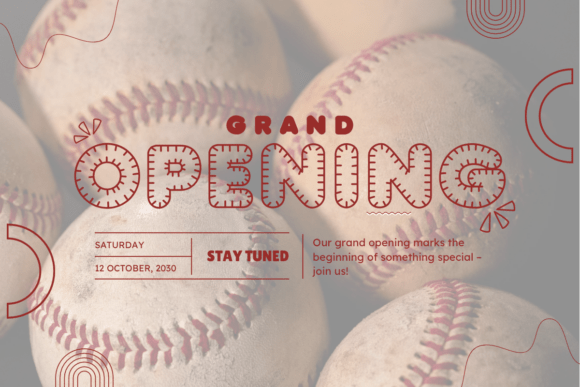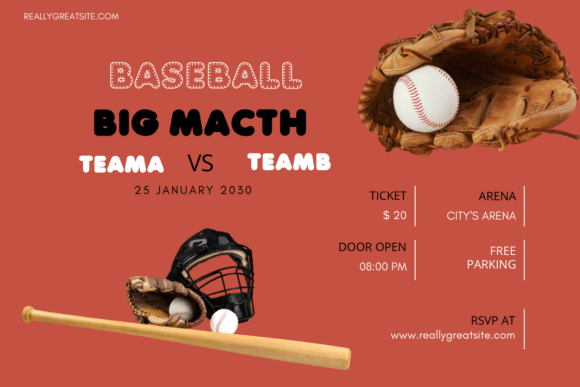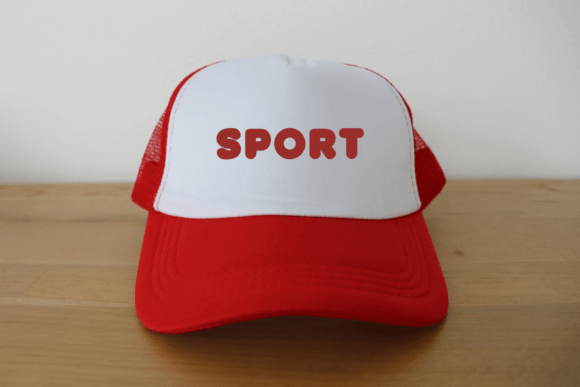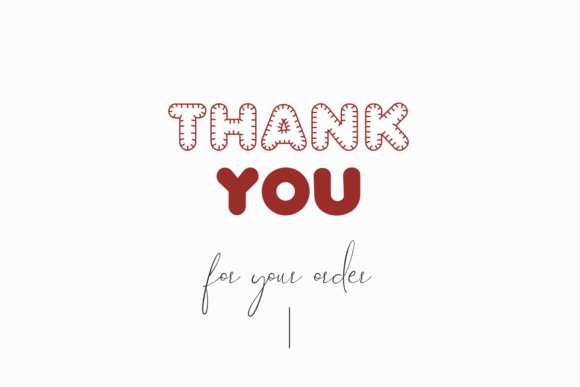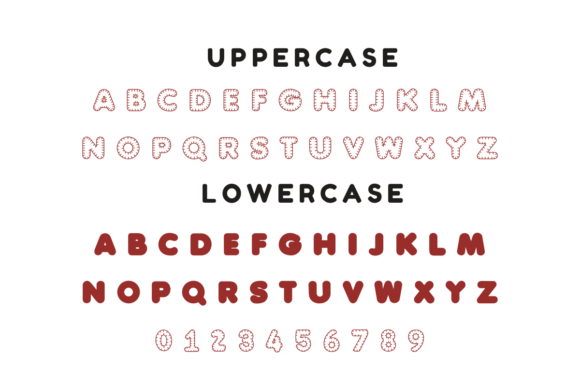
Introducing the Baseball Sport Font: A Home Run for Your Designs
Are you a designer or crafter looking for a font that captures the spirit of America’s favorite pastime? Look no further than the Baseball Sport Font! This fun and athletic decorative font is perfect for team branding, fan gear, kids’ sports events, and themed party decor. With its unique letters stitched like baseball seams and a blocky sports style, it’s sure to be a home run for any playful or sporty design.
The Perfect Font for Sports Enthusiasts
The Baseball Sport Font is designed to bring the excitement of baseball to your designs. Its stitching details and blocky sports style evoke the classic look of baseball jerseys and stadium signs. Whether you’re creating team logos, fan gear, or event materials, this font is sure to score big with sports enthusiasts. The font’s playful and energetic vibe makes it perfect for kids’ sports events, baseball-themed parties, and other fun and lively designs.
Key Features of the Baseball Sport Font
- Unique Stitching Details: The font features stitching details that resemble baseball seams, adding a touch of authenticity to your designs.
- Blocky Sports Style: The font’s blocky sports style gives it a bold and athletic look that’s perfect for sports-themed designs.
- High Versatility: The font is suitable for a wide range of designs, from team branding and fan gear to kids’ sports events and themed party decor.
- Easy to Read: Despite its decorative style, the font is easy to read, making it perfect for use on jerseys, signs, and other materials where legibility is important.
Uses for the Baseball Sport Font
The Baseball Sport Font is a versatile font that can be used in a variety of ways. Here are some ideas to get you started:
- Team Branding: Use the font to create custom logos, jerseys, and other branding materials for your favorite baseball team.
- Fan Gear: Design custom t-shirts, hats, and other fan gear with the Baseball Sport Font.
- Kids’ Sports Events: Create fun and festive designs for kids’ sports events, such as baseball-themed party invitations, posters, and flyers.
- Themed Party Decor: Use the font to create custom banners, signs, and other decor for baseball-themed parties.
Why Choose the Baseball Sport Font?
There are many fonts to choose from, but the Baseball Sport Font stands out for its unique combination of style and versatility. Here are just a few reasons why you should choose this font for your next design project:
- Unique Style: The font’s stitching details and blocky sports style make it a one-of-a-kind font that’s sure to grab attention.
- High-Quality Design: The font is designed with high-quality craftsmanship, ensuring that it will look great in any design.
The Baseball Sport Font is a fun and athletic decorative font that’s perfect for designers and crafters who want to add a touch of America’s favorite pastime to their designs. With its unique stitching details, blocky sports style, and high versatility, it’s sure to be a home run for any playful or sporty design. So why wait? Download the Baseball Sport Font today and start creating your own winning designs!